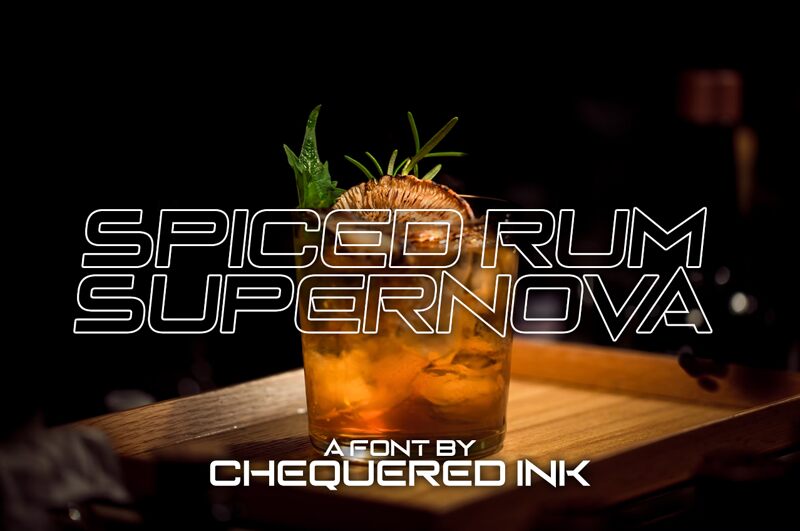
Spiced Rum Supernova font family from Chequered Ink is composed of 2 font styles with futuristic architectural design. The family has a striking, light and modern presence with visual balance achieved through forms of its unique characters. Among the many accessible and valuable qualities of the font family is its free price tag for personal use. Use it for your posters, advertisements, magazine covers, and other visual presentations.
Spiced Rum Supernova is ideal for getting creative with book covers and posters. Business and invitation cards, and branding or packaging design are also suitable applications. Developers and designers in web or mobile are able to create engaging user experiences with the fonts.